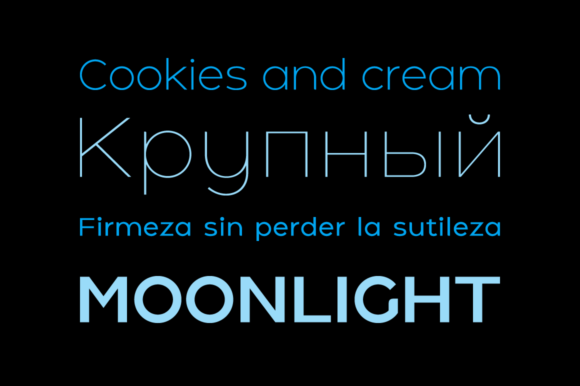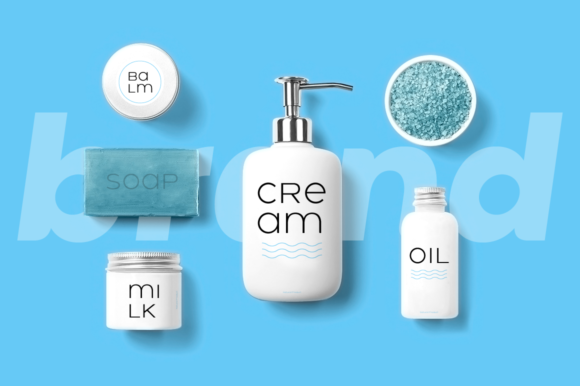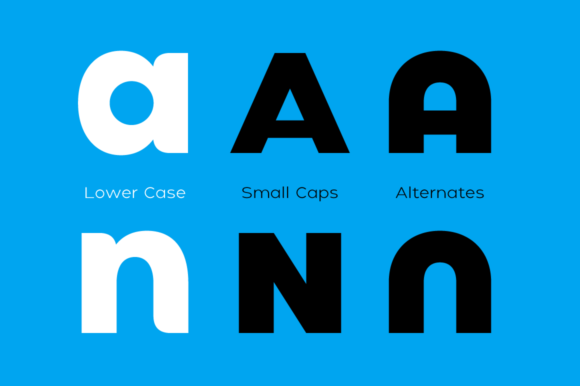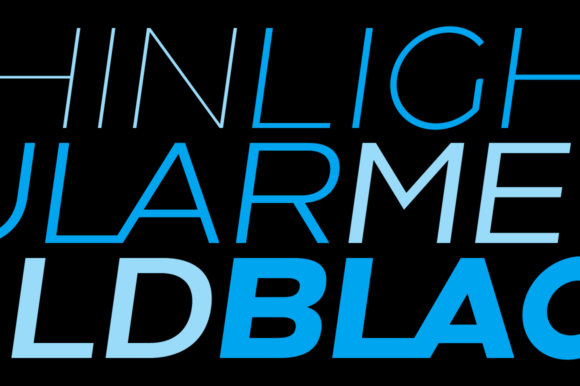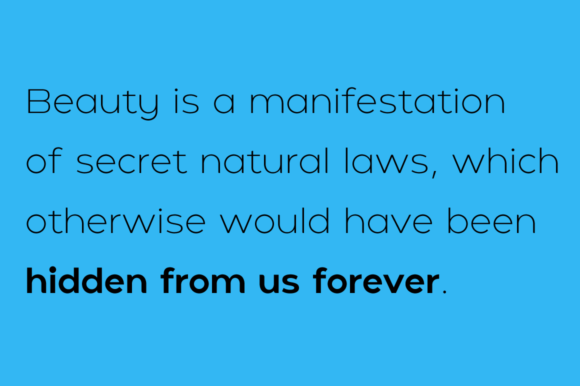
Introduction to Holgada Family Font
Have you ever been working on a creative project, pouring your heart and soul into every detail, only to be held back by the right font? You know, that one thing that can make or break the entire design. I’m sure many designers can relate to this feeling. But what if I told you that there’s a font family that can elevate your work to the next level? Say hello to the Holgada Family Font, a game-changing design resource that’s been making waves in the design community.
Designed by Pablo Balcells for Graviton Font Foundry in 2020, Holgada Family Font is a stunning geometric sans serif typeface that boasts refined rounded endings, giving it a soft and friendly appearance. With its generic shapes and clear legibility, this font is perfect for any kind of project, whether it’s a small text or a large headline.
What sets Holgada apart is its versatility, making it a valuable asset for designers. With 12 styles to choose from, each containing small caps and glyph coverage for several languages, you’ll never run out of options. Plus, its high-quality design ensures that it looks great even in small sizes, making it a great choice for body text. And the best part? You can download it for free, perfect for designers on a budget or those who want to experiment with a new design resource.
Key Features of Holgada Family Font
- The Holgada Family Font is a high-quality design resource perfect for creative projects, offering a unique and elegant style.
- One of the unique characteristics of the Holgada Family Font is its versatility, making it suitable for a wide range of design projects, from wedding invitations to business cards.
Honest Review: Holgada Family Font
As a designer, I’m always on the lookout for high-quality fonts that can elevate my creative projects. Recently, I stumbled upon the Holgada Family Font, and I must say it’s been a game-changer.
What works well with the Holgada Family Font is its versatility. It comes in a range of styles, from casual to formal, making it perfect for various design projects. The font is also incredibly easy to use, with a transparent background that makes it seamless to integrate into any design.
- ✨ High-quality design: The Holgada Family Font is a beautifully crafted font that’s sure to impress.
- ✨ Versatile: The font comes in a range of styles, making it perfect for various design projects.
One limitation of the Holgada Family Font is that it may not be suitable for very formal or traditional designs. Additionally, the font may not be as comprehensive as some other font families, with a limited range of weights and styles.
Overall, I’m really impressed with the Holgada Family Font. It’s a high-quality, versatile font that’s perfect for designers looking to add some creativity to their projects. Whether you’re working on a personal project or a commercial design, the Holgada Family Font is definitely worth checking out.
For optimal results, use Holgada Family Font on a transparent background to allow the font to stand out. Experiment with different font sizes and styles to create visually appealing text effects.
Holgada Family Font is ideal for creative projects, such as logo design, branding, and digital art. Its unique style makes it perfect for adding a touch of personality to your designs.